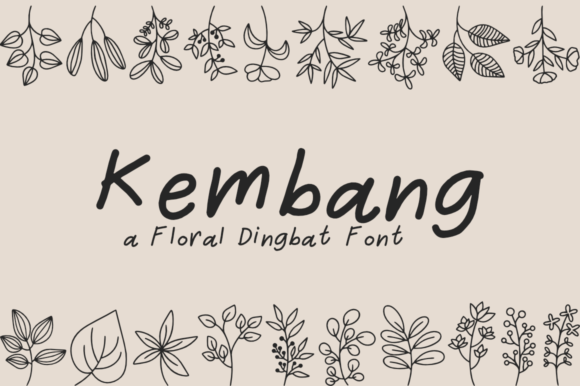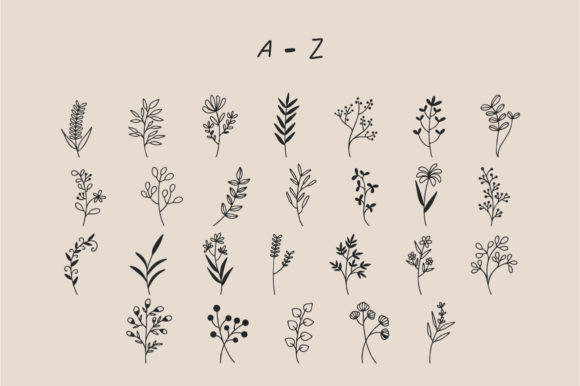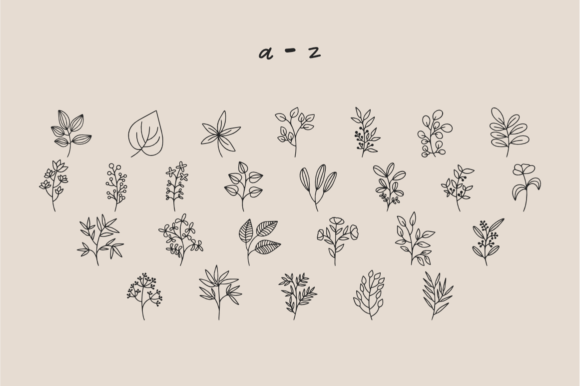
About Kembang Font
“Kembang” is a delicate and useful dingbats font that brings a touch of elegance and versatility to your creative projects. With its intricately designed symbols and characters, this font is perfect for adding a unique and artistic flair to your designs.
The delicate nature of “Kembang” makes it ideal for various applications. Whether you’re designing invitations, creating stationery, or working on digital graphics, this font can elevate your creations and add a refined touch. The intricate details and graceful lines of the dingbats make them visually captivating and aesthetically pleasing.
You can confidently incorporate “Kembang” into your favorite creations, knowing that it will enhance the overall design. The font’s versatility allows you to use it in a wide range of projects, such as wedding invitations, branding materials, packaging designs, and more. Its delicate and intricate symbols can serve as decorative elements, borders, or even standalone illustrations, adding a touch of sophistication to your work.
One of the great advantages of “Kembang” is its ability to create visually appealing compositions when combined with other fonts. Its unique characters can be used alongside different typefaces to create interesting contrasts and harmonious designs. By experimenting with different combinations, you can discover the perfect balance and achieve stunning results.
Additionally, “Kembang” can be a valuable asset for digital designs, social media graphics, and website elements. Its delicate and artistic nature can help you create visually pleasing visuals that capture the attention of your audience and convey a sense of elegance and refinement.
In conclusion, “Kembang” is a delicate and useful dingbats font that adds a touch of elegance and versatility to your creative projects. Its intricately designed symbols and characters make it ideal for various applications, allowing you to confidently incorporate it into your favorite creations. Explore the possibilities of “Kembang” and let yourself be amazed by the visually stunning outcomes it generates.